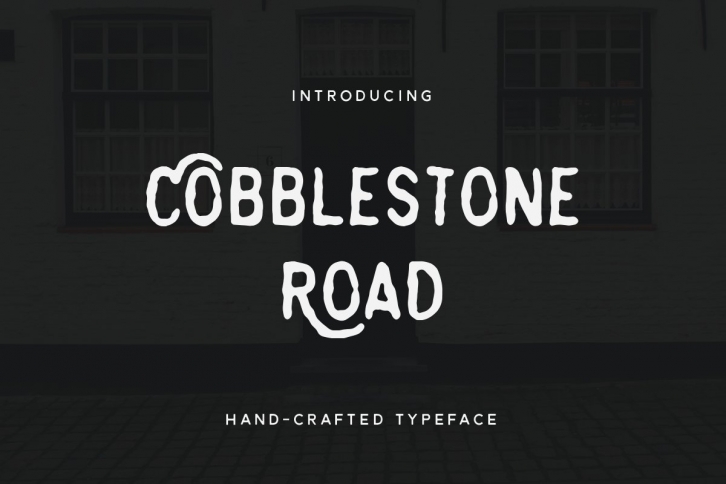
I am so happy to show you all my newest typeface: Cobblestone Road!
Like many of my fonts, Cobblestone started out as pencil and paper. I've done my best to try and retain those naturally textured edges that make this font unique.
Be sure to check out the preview images so you can see all of the included glyphs!! I'll be adding some more alternates and more glyphs for other languages very soon too